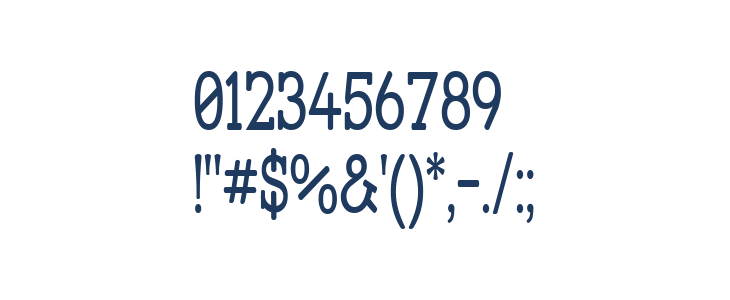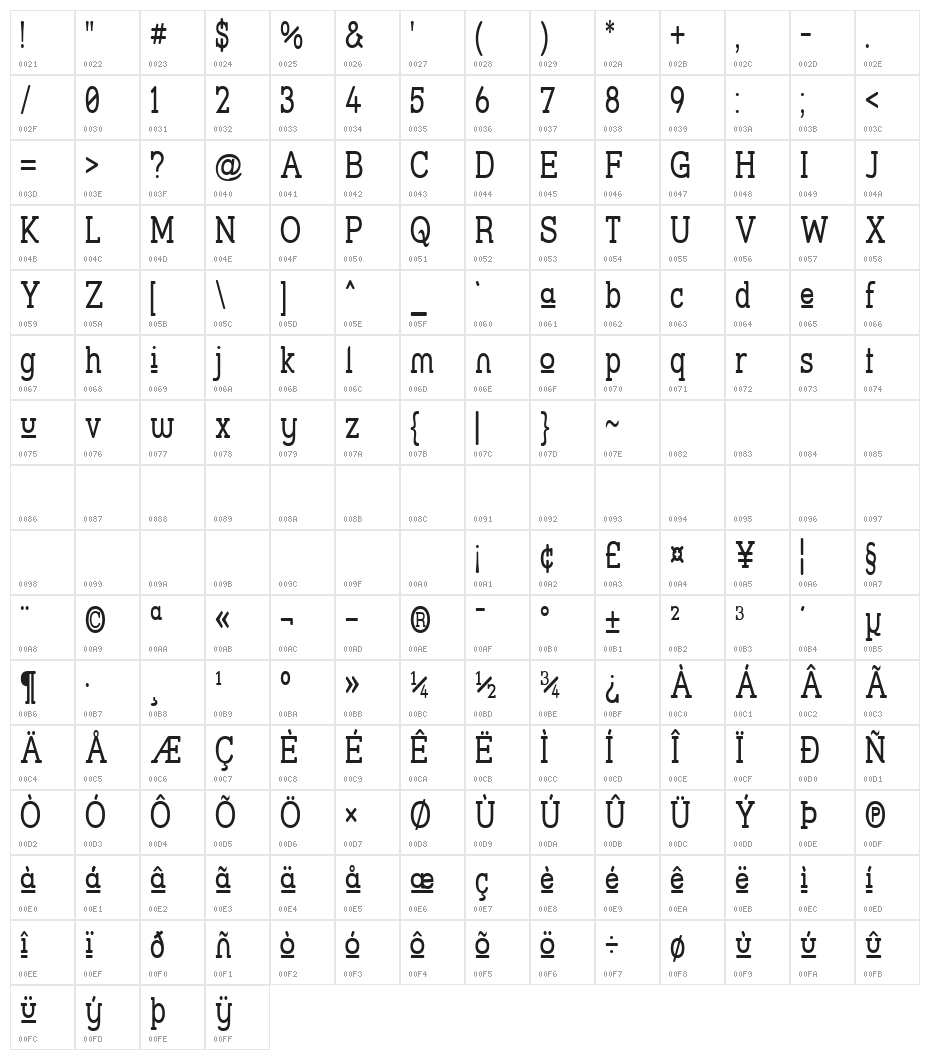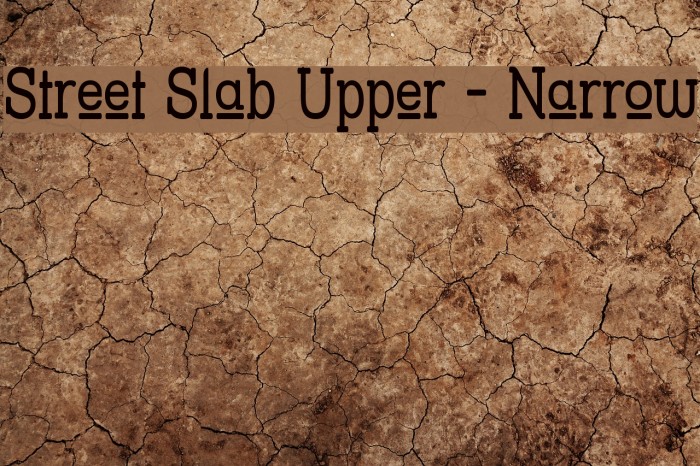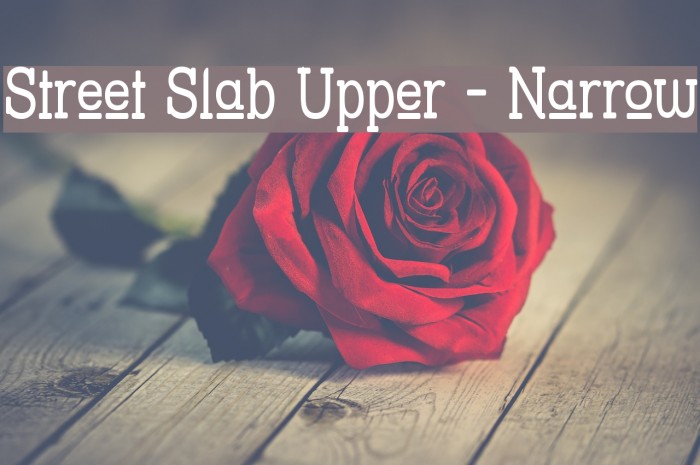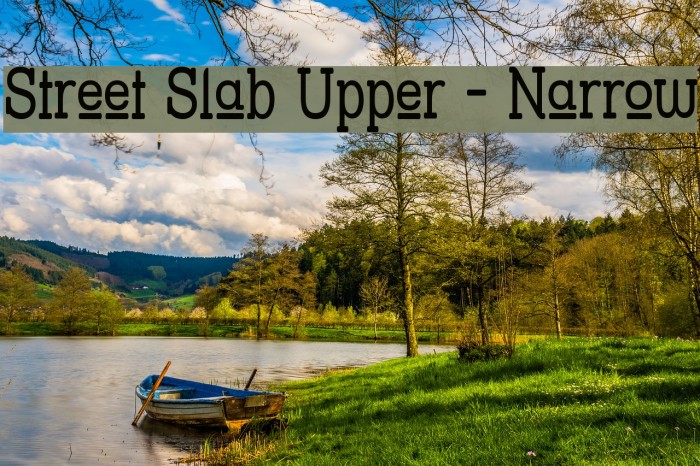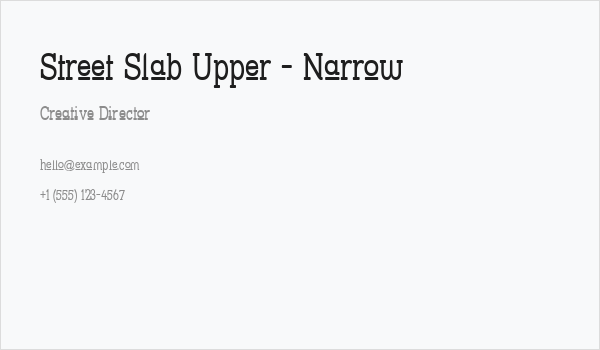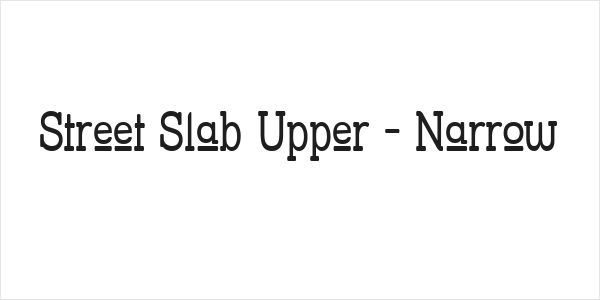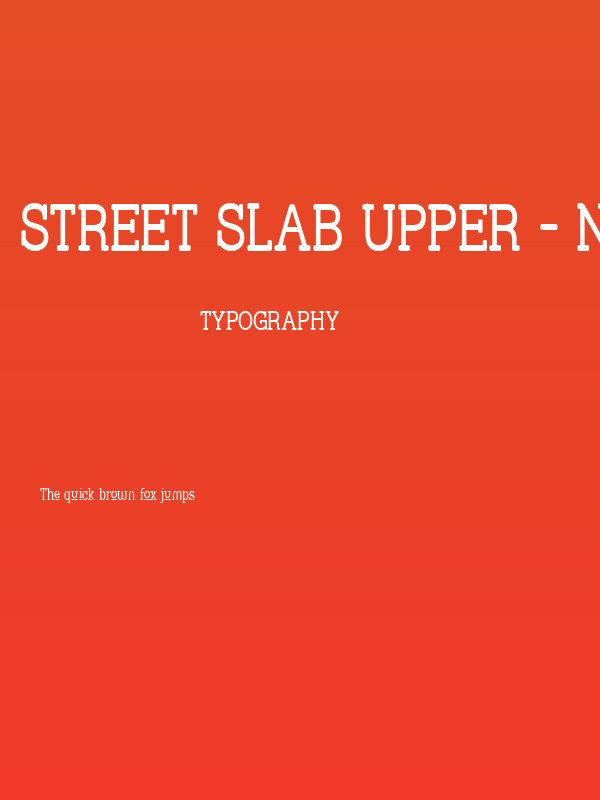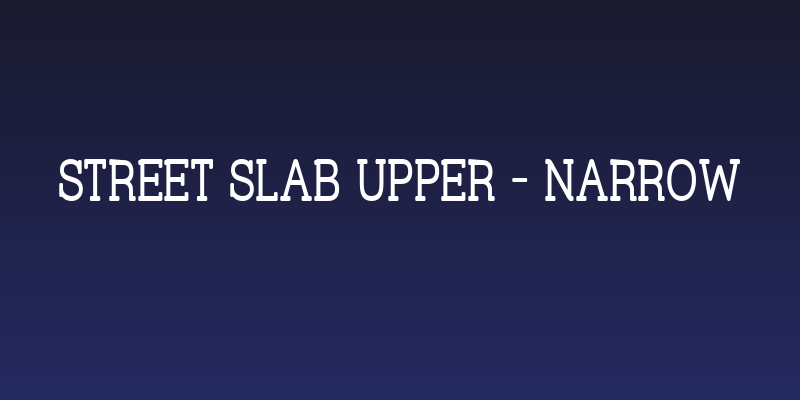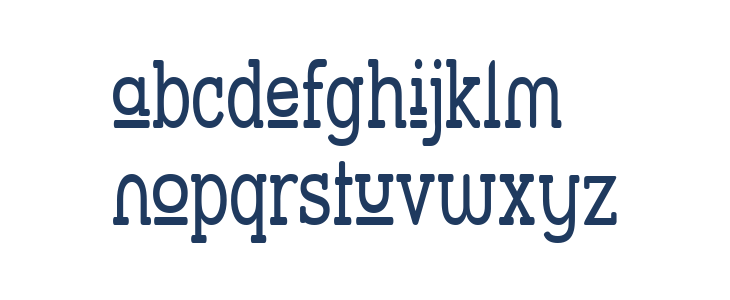
Street Slab Upper - Narrow Font
Street Slab Upper - Narrow Description
This font features a robust slab serif style with a narrow width, giving it a strong and structured appearance. The uppercase letters are bold and commanding, while the lowercase letters maintain a consistent weight, providing a balanced look. The numerals are clear and distinct, making them easily readable. Special characters are well-defined, adding to the font's versatility. The overall design is modern yet retains a classic touch, suitable for various applications. The character spacing is tight, enhancing its compact and efficient use of space.
| Use Case | Headlines, Logos, Signage |
| Proposed Projects | Ideal for headlines, posters, branding, and signage where a strong, impactful presence is needed. |